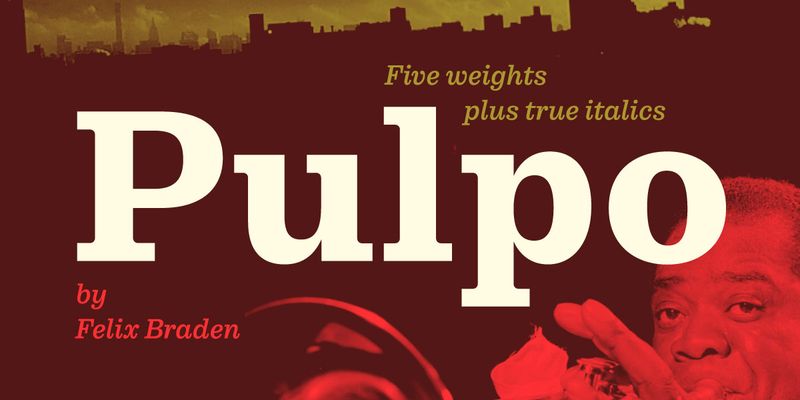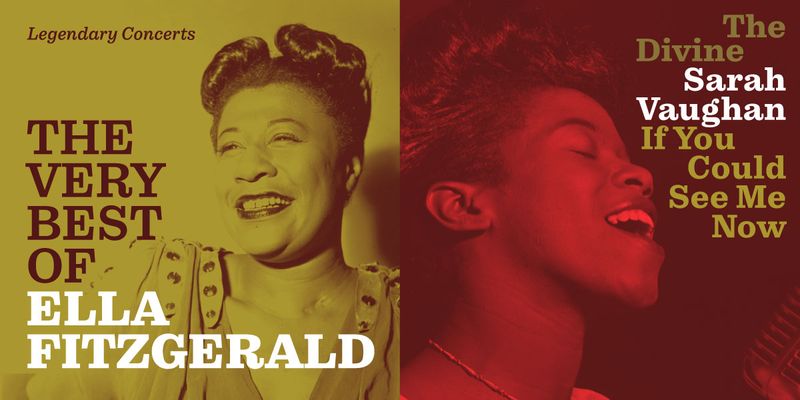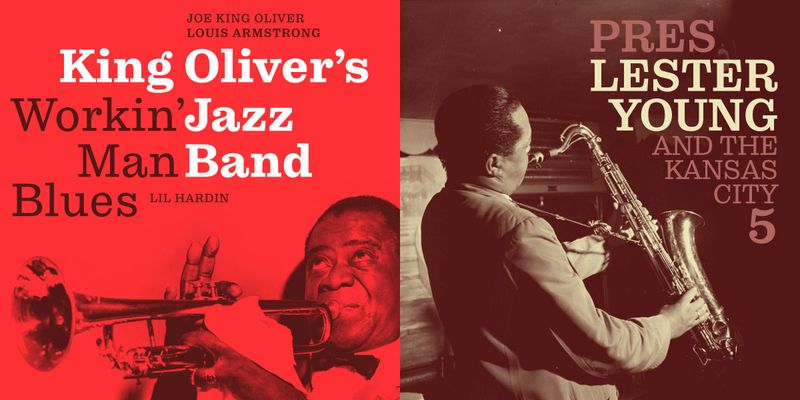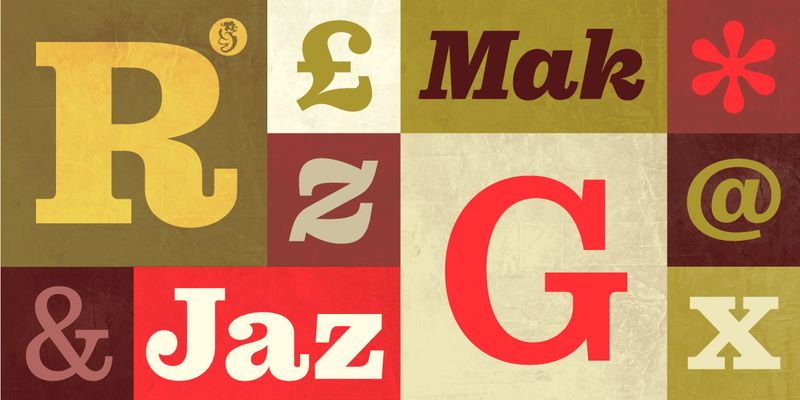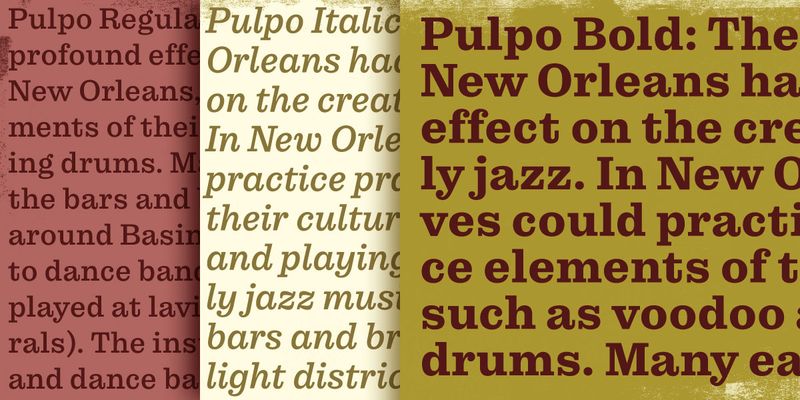
A friendly and comfortable looking typeface inspired by Century Schoolbook and Clarendon. Massive body very suitable for running text on print as well as on screen. Longer extenders give text a bit more air to breathe and improve legibility in small text sizes. Bolder weights have strong headline qualities. The familiarity of the letterforms conceals some nostalgia and makes it a good choice for food and lifestyle themes and for everything that was better in the good old times.